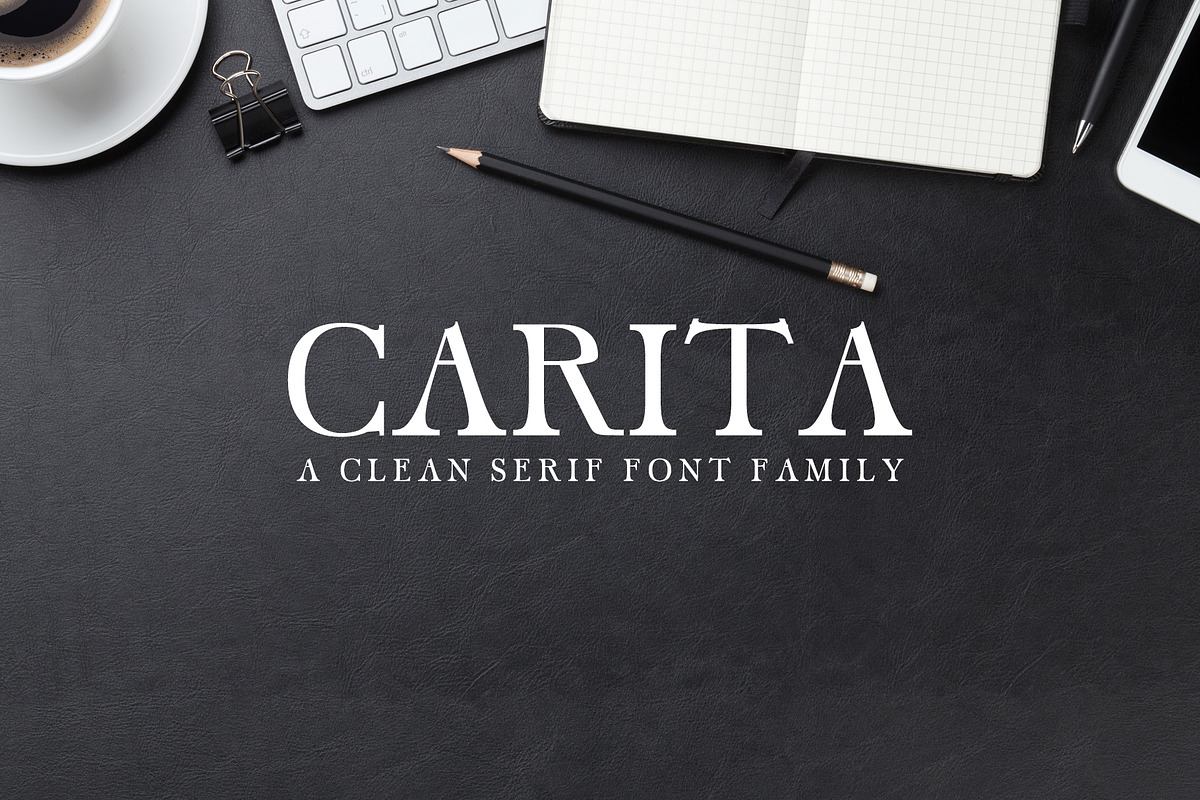
Carita Clean Serif 3 Font Free Download is a perfect choice for designers looking for a clean, modern serif font that adds elegance to any project. With its sleek design and versatile style, this font is ideal for both personal and professional use. Whether you're designing a website, logo, or print materials, Carita Clean Serif 3 Font offers a polished look that enhances the overall aesthetic of your work.
Carita Clean Serif 3 Font Free Download comes with a variety of weights and styles, giving you flexibility in your designs. It’s a great option for those who want a sophisticated font that stands out without compromising readability. Whether you're working on a minimalist design or something more intricate, Carita Clean Serif 3 Font is a perfect match.